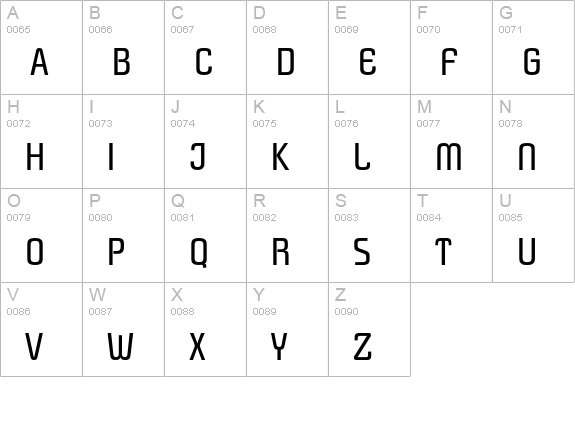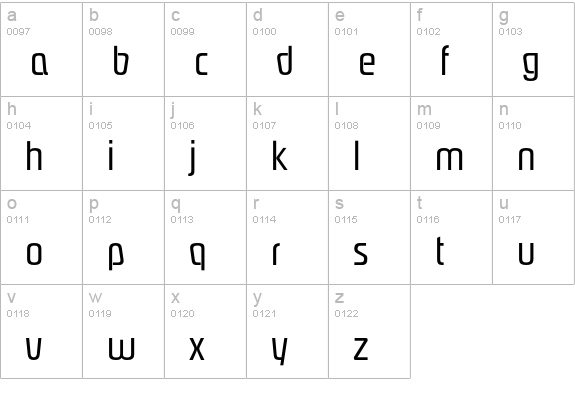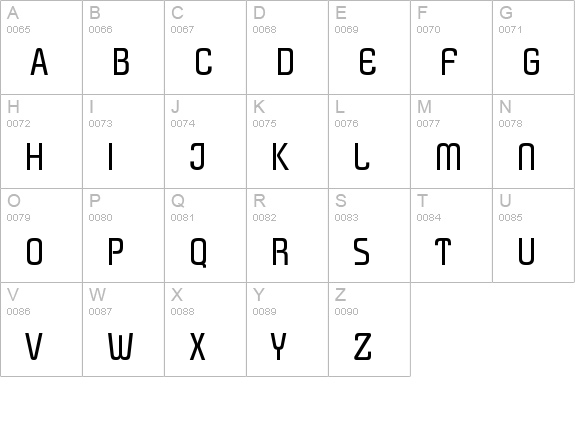
PasadenaEF-Regular is the standard, neutral variant in the PasadenaEF typeface family \xE2\x80\x94 well suited to general body text, paragraphs, and standard typographic work.
PasadenaEF-Regular is a modern and elegant font that exudes sophistication and style. With its clean lines and balanced proportions, this versatile typeface is perfect for a wide range of design projects, from branding and advertising to packaging and editorial work. This font features a classic yet contemporary feel, making it suitable for both professional and creative applications. Its versatility allows it to effortlessly adapt to various design styles, from minimalist and sleek to bold and expressive. One of the standout features of PasadenaEF-Regular is its legibility. The carefully crafted letterforms ensure clear and easy reading, making it a reliable choice for both print and digital mediums. Whether it's a headline or body text, this font delivers clarity and impact. What sets PasadenaEF-Regular apart is that it is freely available to download at FontsMarket.com. This means that designers and creatives can access this high-quality font without any cost, allowing them to explore its potential and integrate it into their projects seamlessly. With its timeless appeal and accessibility, PasadenaEF-Regular is a must-have font for any design arsenal. Its versatility, legibility, and availability make it a valuable resource for both professionals and enthusiasts alike. So go ahead and unleash your creativity with PasadenaEF-Regular, the free font that delivers style and substance.